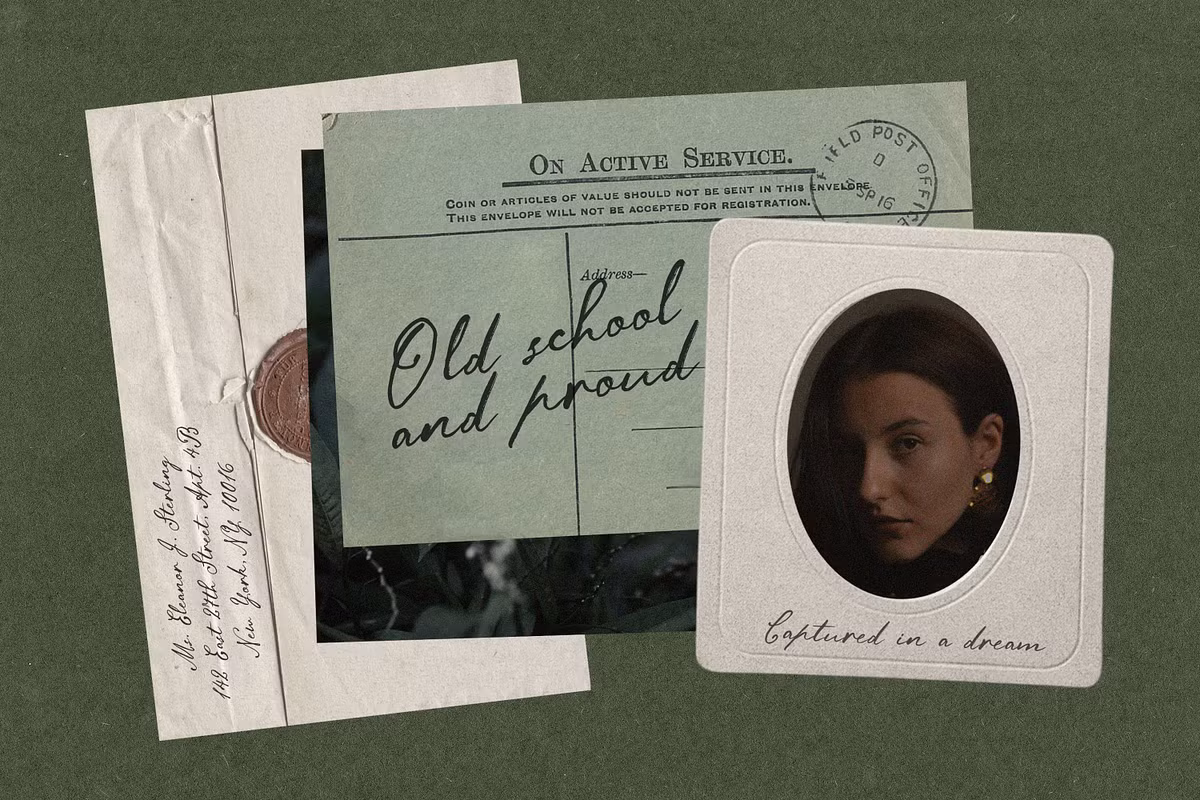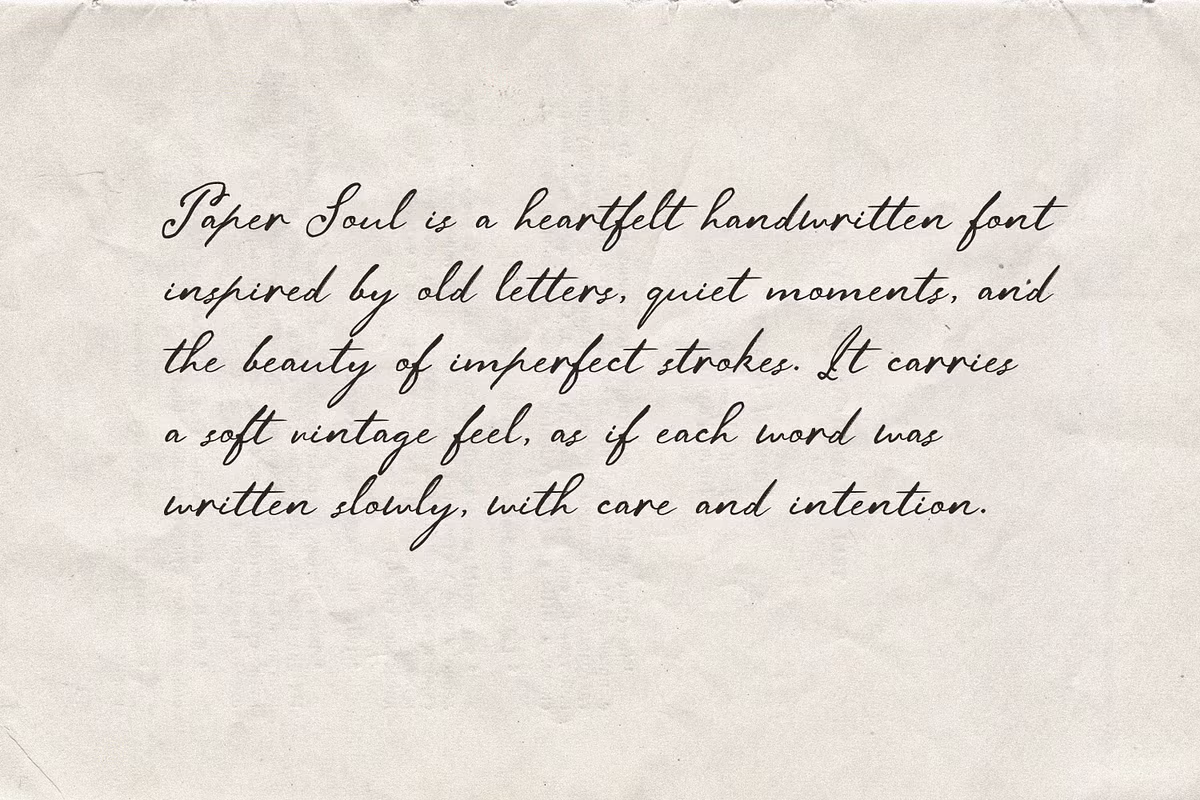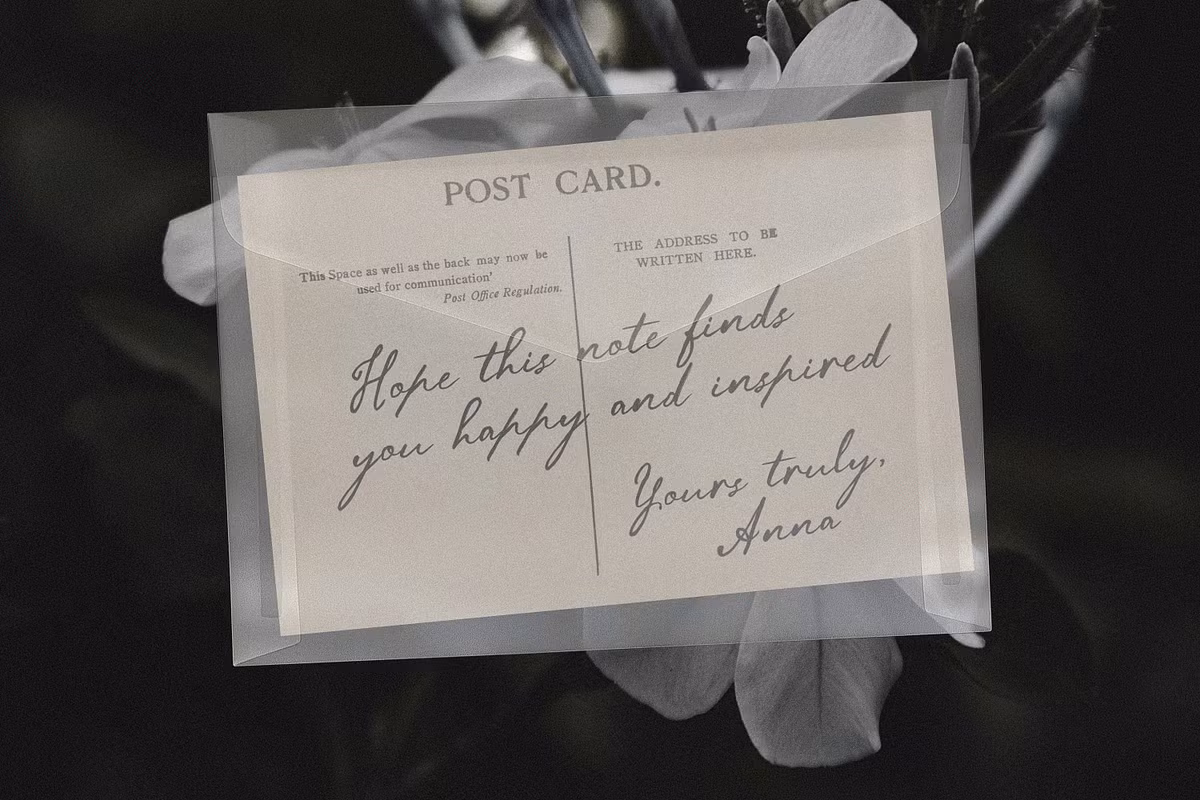
Paper Soul Quiet Vintage Font: Handwritten Script for Elegant Designs
Paper Soul Quiet Vintage Font
Paper Soul Quiet Vintage Font: Handwritten Script for Elegant Designs
The Paper Soul font is a style that feels old and personal. The Paper Soul font looks like letters that were written by hand in the past. Designers who want a feel can choose the Paper Soul font. The Paper Soul font has strokes that look like ink, on paper. The Paper Soul font makes each word feel like it was written a time ago.
Sample of Paper Soul font in use
Example of the Paper Soul font style.
I like the way Paper Soul shows the design style that mixes elegance with a look. I notice that Paper Soul has a tilt and tall letters that give the look. I see that Paper Soul works well for the design uses.
• Handwritten Aesthetic: The font design copies the variations, in handwriting. Handwritten Aesthetic gives a touch to any project.
• Strokes: I notice the irregular strokes of Paper Soul. I think the strokes bring the beauty of writing. The strokes of Paper Soul feel like letters written with care.
• Timeless Appeal: The font keeps a charm. Timeless Appeal works for projects. Timeless Appeal works for themed projects.
One of the parts of the Paper Soul font is the large character set of the Paper Soul font. The large character set of the Paper Soul font lets you put ideas and many feelings into your text. I like using the Paper Soul font.
I notice the character set includes these items:
• Uppercase and lowercase letters
• Numerals and punctuation marks
• Special characters add to the fonts versatility. Special characters let the font work, in ways.
Character set example of Paper Soul font
Character set showcasing the Paper Soul font’s versatility.
I find Paper Soul can improve many design projects. Here are some best ways to use Paper Soul:
• Wedding Invitations: I love the quality of Paper Soul. The timeless quality of Paper Soul makes Paper Soul a perfect choice, for wedding invitations. Paper Soul captures the romance of the occasion.
• Stationery and Greeting Cards: I notice that the font works for use and, for branding. The font adds a touch of elegance to any stationery design. The font adds a touch of elegance, to any greeting card design.
• Logos and Monograms: The smooth curves and slants of Paper Soul improve logos and monograms. Paper Soul gives logos and monograms a memorable identity.
• Quotes and Inspirational Texts: I notice that the font’s artistic style raises quotes and phrases. I notice that the font’s artistic style makes quotes and phrases stand out in any design context.
• Nostalgic Projects: Any Nostalgic Project that tries to bring memories will gain from the feel of Paper Soul. I have seen Paper Soul help Nostalgic Projects feel more familiar.
When I design with the Paper Soul font I make sure to pick fonts that match the Paper Soul font. The Paper Soul font needs matching fonts to keep the balance even. I have tried many combos and the Paper Soul font still feels best with these pairings. Here are some pairing suggestions, for the Paper Soul font:
• Serif Fonts: Pair Paper Soul, with a serif font such as Times New Roman or Garamond. Paper Soul and the classic serif font give a contrast that makes the text easier to read. Paper Soul and the classic serif font also keep the look.
• Sans Serif Fonts: Try pairing Sans Serif Fonts with a sans serif like Arial or Helvetica. The contrast makes Paper Soul shine as the focus of your design. Paper Soul stands out.
• Handwritten Fonts: I like to pair Paper Soul with the handwritten fonts when I want a playful feel. I always check that the second font is simpler so the viewer does not get overwhelmed.
Font pairing example with Paper Soul
Example of font pairing with Paper Soul.
In conclusion the Paper Soul font is a script that adds elegance and a personal touch, to designs. Paper Soul font has an inspired look, a character set and versatility that make it a good choice for many projects from wedding invitations, to logos and quotes. Paper Soul font works well. I have used Paper Soul font in my work. I love how Paper Soul font feels. By learning Paper Soul font design style use cases and pairing options you can use Paper Soul font well in your work. I wish you creativity and inspiration as you explore the possibilities of Paper Soul font.